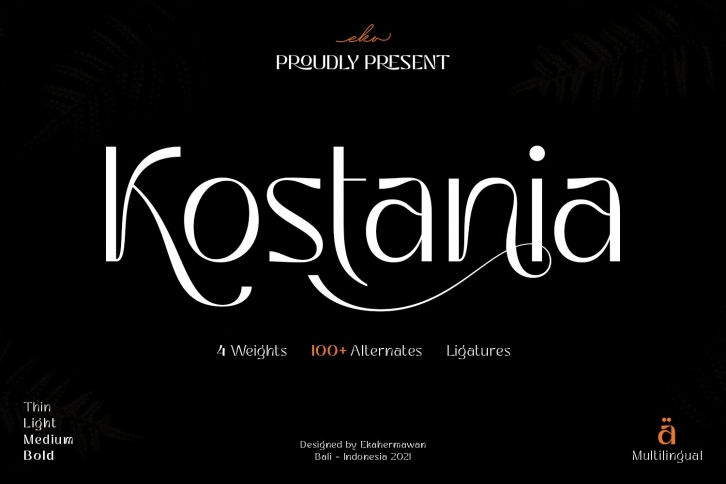
Kostania is a great font that was designed by Putuekahermawan. Imagine the amount of combinations you can create using this font! The archive is 5.10 MB and it was released on September 14, 2021. Kostania looks beautiful on wedding invitations, greeting cards, logos, posters, labels, t-shirt designs, logos, business cards and is perfect for use in ink or watercolor works, fashion, magazines, packaging and food menus, children's books and more!